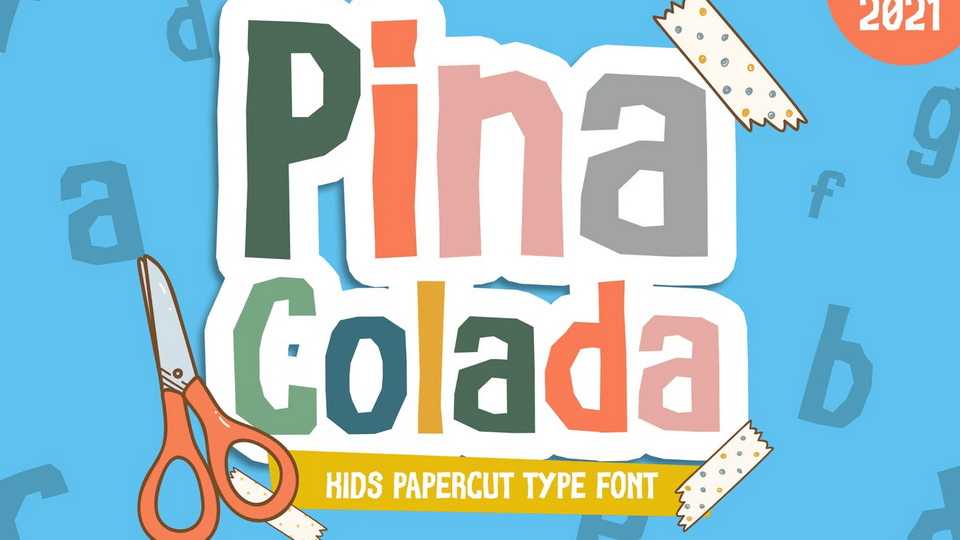
Download Pina Colada font, a fun kids typeface. Pina Colada font looks like from a fresh cut of paper and ready to be put and arranged as a fun project for kids.